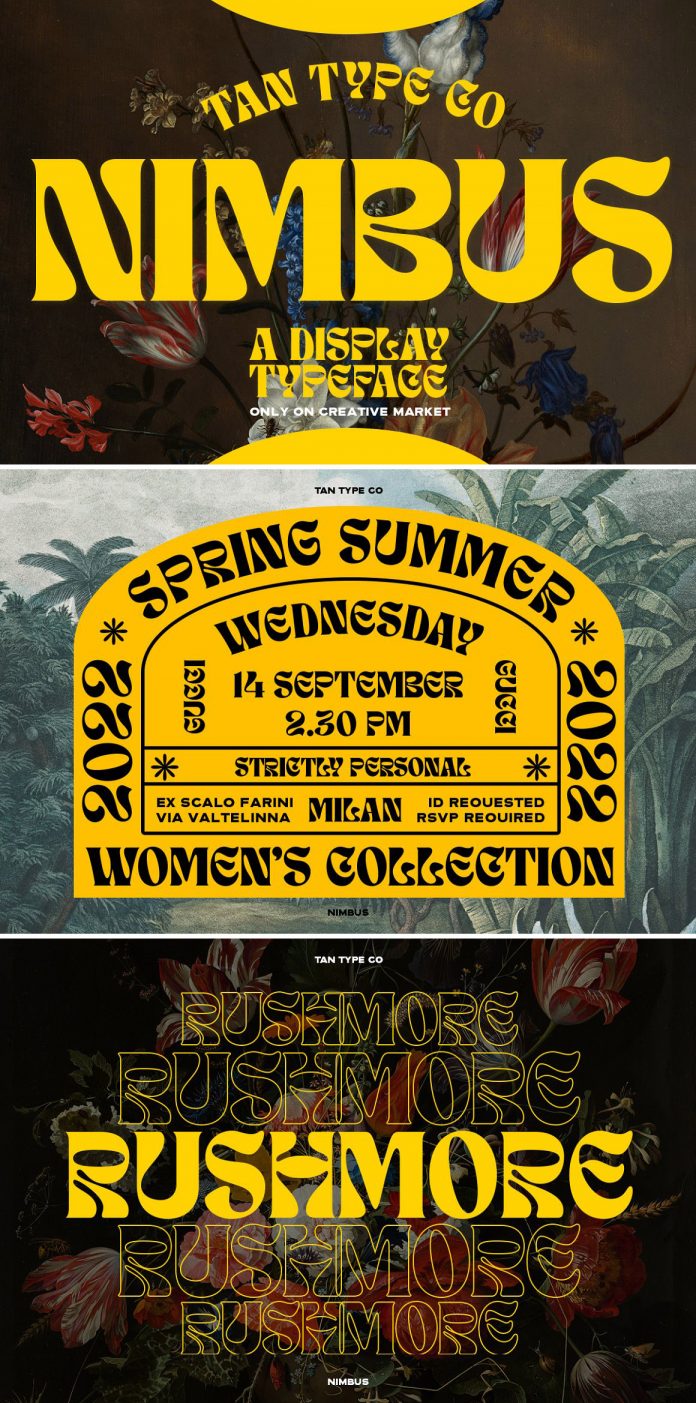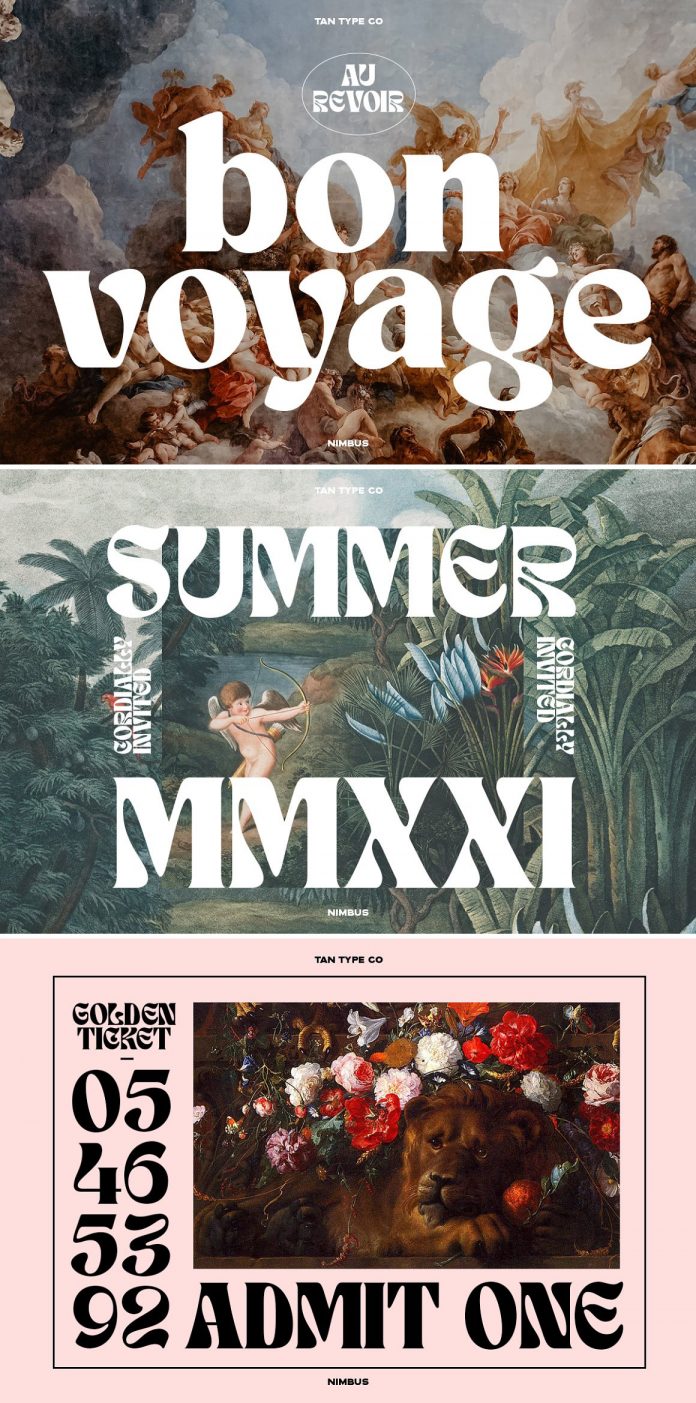
TAN NIMBUS, a psychedelic-inspired typeface designed and published by TanType.
The TAN NIMBUS font was published in July 2021 by the team of TanType. Its unique, decorative style draws inspiration from the hippie chic of the 1960s as well as psychedelic designs. The typeface supports multiple languages and you can use it for headlines, stylish text overlays, posters, clothing, packaging, branding, social media, website headers, just to name a few.